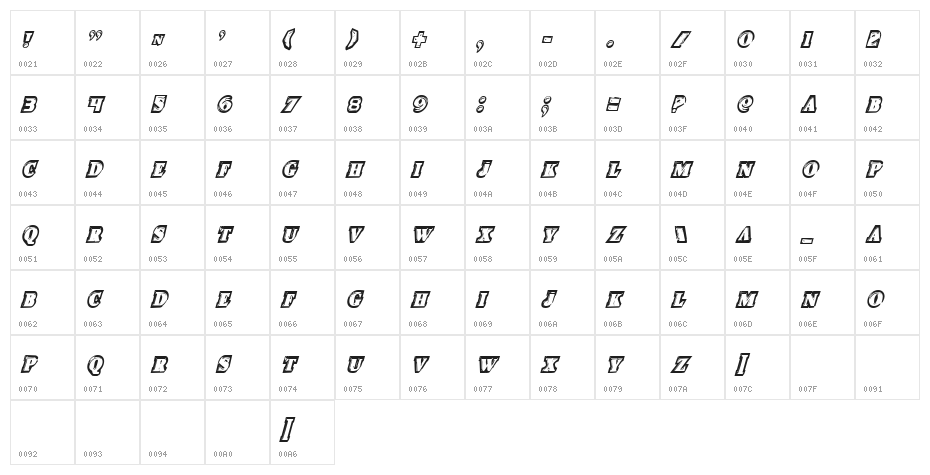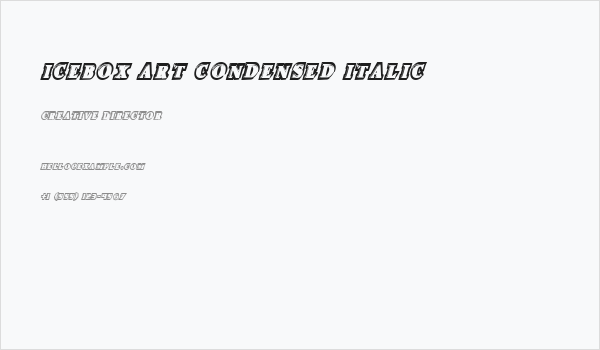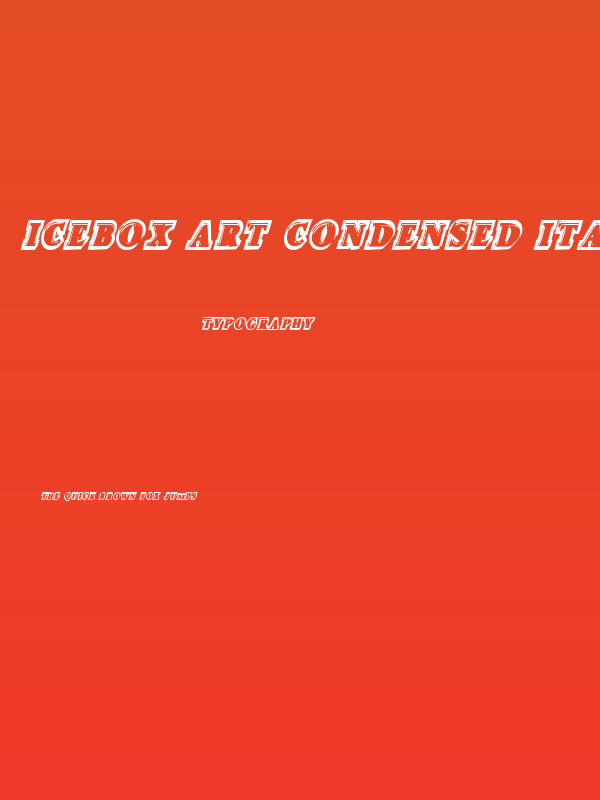
Icebox Art Condensed Italic Font
Icebox Art Condensed Italic Description
This font features a bold, condensed style with a distinct italic slant, giving it a dynamic and energetic appearance. The characters are outlined with a thick black border, creating a striking contrast against the white interior. This design choice enhances readability while maintaining a decorative flair. The uppercase and lowercase letters share a consistent style, with sharp angles and clean lines that contribute to its modern aesthetic. The numerals and special characters are equally bold and maintain the same condensed and italicized characteristics, ensuring uniformity across all glyphs. This font's unique style makes it suitable for eye-catching designs and impactful text displays.
| Proposed Projects | Ideal for posters, headlines, logos, and any design requiring a bold, eye-catching typeface. |